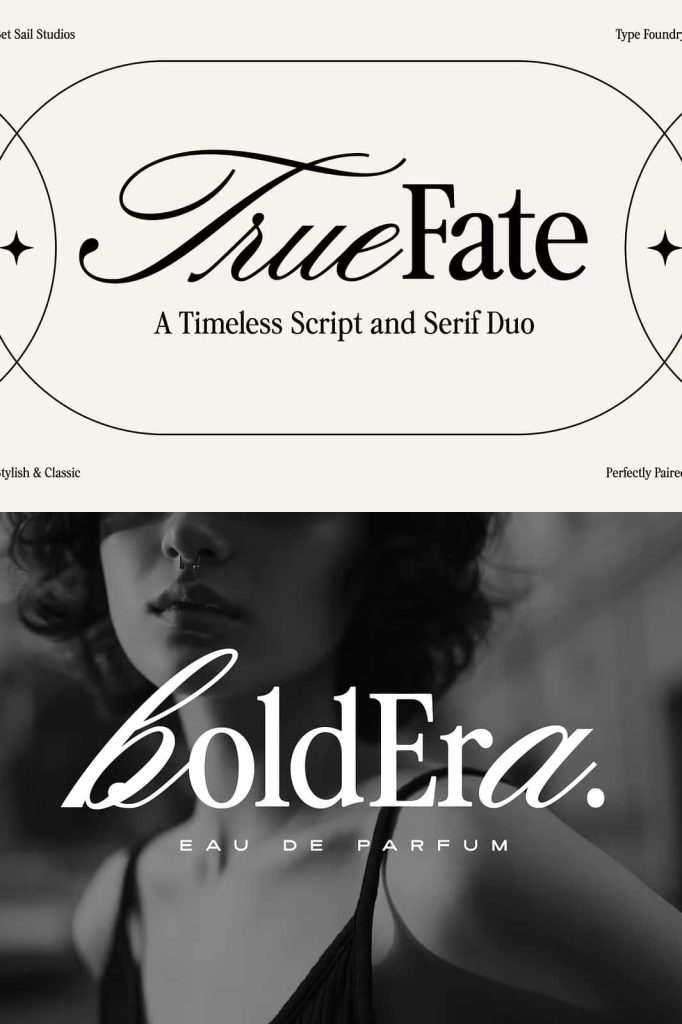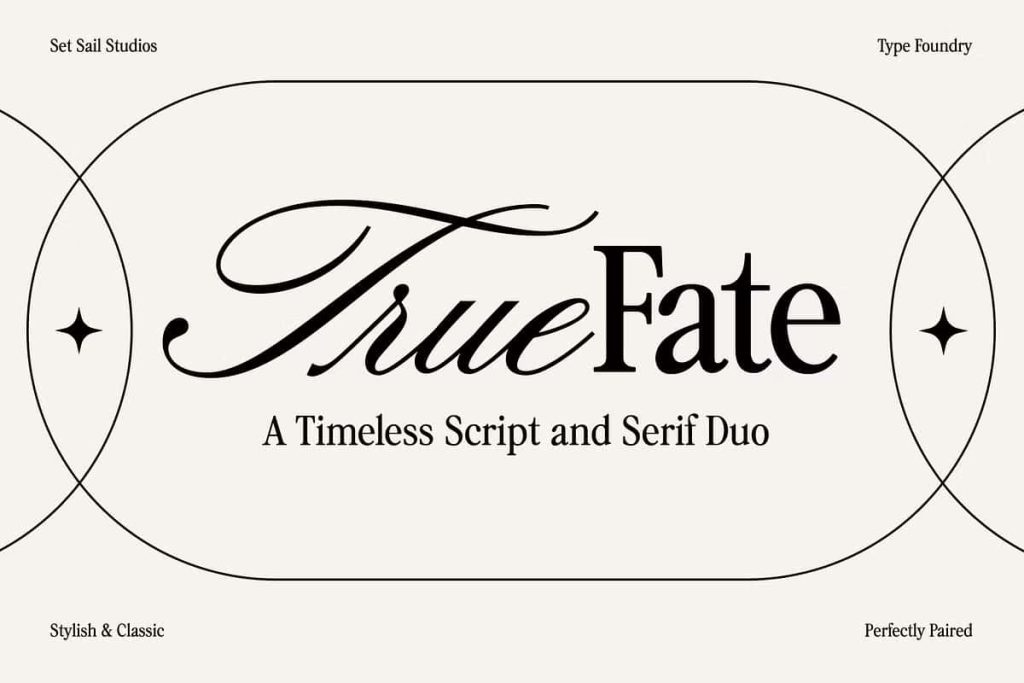
True Fate Font Duo – A Timeless Pairing of Script and Serif Fonts for Effortless Design Harmony
True Fate Font Duo is an elegant script and serif font duo crafted with precision and passion. It brings together the grace of a flowing script and the sophistication of a classic serif, offering designers a seamless, ready-made font pairing that works beautifully in both modern and traditional contexts. Perfect for branding, packaging, editorial, and print projects, True Fate saves you the time and effort of searching for fonts that complement each other perfectly—because this duo was designed to do just that.
Timeless Design with Modern Elegance
At its core, True Fate Font Duo celebrates balance and beauty. The script font offers smooth, natural curves and elegant strokes inspired by traditional calligraphy, while the serif companion adds structure, refinement, and authority. Together, they form a versatile design partnership that blends personality with professionalism. This timeless combination makes True Fate ideal for creating luxury branding, stylish invitations, and editorial headlines that demand attention and sophistication.
Crafted for Perfect Harmony
What makes True Fate Font Duo stand out is the meticulous design process behind every letterform. Both the script and serif fonts were built from the ground up to complement each other in rhythm, proportion, and tone. The curves of the script align naturally with the angles and stems of the serif, ensuring seamless visual flow across headlines, subheadings, and body text. Whether used together or separately, the duo maintains a polished and cohesive aesthetic across all design applications.
Designed for Versatility and Creative Freedom
True Fate was created to make your design process faster, easier, and more enjoyable. Use the expressive script for logos, signatures, or attention-grabbing titles, while the serif version provides structure and balance for supporting text. This pairing works beautifully for branding, packaging design, editorial layouts, wedding stationery, social media graphics, and website headers. Its timeless style adapts effortlessly to modern and vintage aesthetics, making it a valuable addition to any designer’s font collection.
Professional Quality with Personality
Every curve, serif, and stroke in True Fate Font Duo has been refined for legibility and impact. The script flows with natural rhythm, giving it an organic, handwritten quality, while the serif anchors the design with confidence and clarity. The combination creates visual tension that feels both classic and contemporary—perfect for brands that want to project warmth, elegance, and authenticity. The duo’s careful construction ensures it performs beautifully in both print and digital environments.